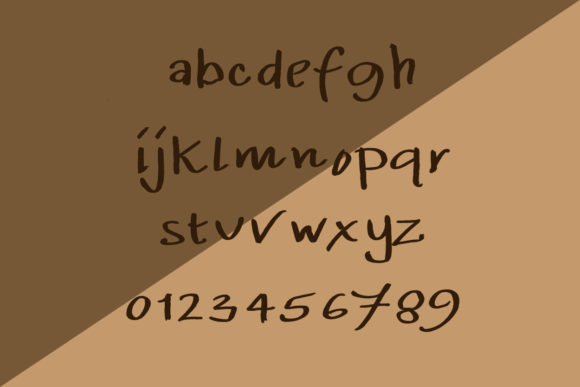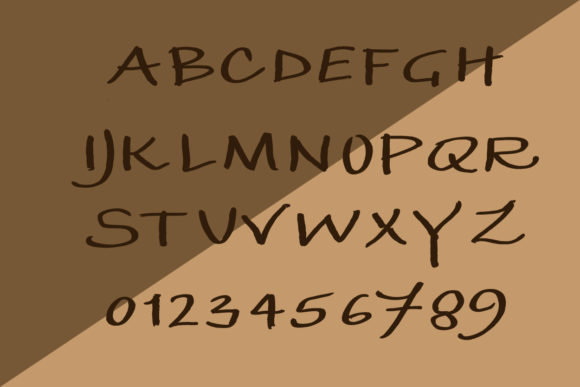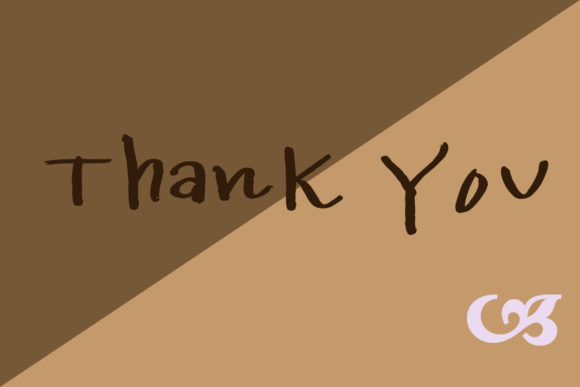
Cafe Choco Font: Add a Personal Touch to Your Designs with this Quirky Handwritten Font
Are you a designer or crafter looking for a unique and authentic font to add a personal touch to your designs? Look no further than Cafe Choco Font! This cute and quirky handwritten font is perfect for creating chalkboard quotes, teaching materials, and other designs that require a personal and realistic feel.
What is Cafe Choco Font?
Cafe Choco Font is a handwritten font that is designed to mimic the look and feel of chalkboard writing. Its authentic and slightly sloppy appearance gives it a unique and endearing quality that is sure to capture the attention of your audience. Whether you’re creating a chalkboard sign, a teaching resource, or a social media graphic, Cafe Choco Font is the perfect choice.
Key Features of Cafe Choco Font
- Cute and Quirky Design: Cafe Choco Font has a playful and whimsical design that is sure to add a touch of personality to your designs.
- Authentic Look and Feel: The font’s slightly sloppy and handwritten appearance gives it an authentic look and feel that is perfect for creating chalkboard-style designs.
- Highly Versatile: Cafe Choco Font can be used for a wide range of design projects, from chalkboard quotes and teaching materials to social media graphics and more.
- Easy to Read: Despite its quirky design, Cafe Choco Font is highly legible and easy to read, making it perfect for creating designs that need to communicate a message.
Uses for Cafe Choco Font
Cafe Choco Font is a highly versatile font that can be used for a wide range of design projects. Here are just a few ideas to get you started:
- Chalkboard Quotes: Use Cafe Choco Font to create eye-catching chalkboard quotes that are perfect for social media, blogs, or websites.
- Teaching Materials: Add a personal touch to your teaching materials, such as worksheets, lesson plans, and presentations, with Cafe Choco Font.
- Social Media Graphics: Use Cafe Choco Font to create engaging social media graphics that are sure to capture the attention of your audience.
- Crafting and Scrapbooking: Add a touch of personality to your crafting and scrapbooking projects with Cafe Choco Font.
Tips for Using Cafe Choco Font
Here are a few tips for getting the most out of Cafe Choco Font:
- Use it with Chalkboard Backgrounds: Cafe Choco Font looks amazing with chalkboard-style backgrounds, so be sure to pair it with a background that complements its authentic look and feel.
- Keep it Simple: While Cafe Choco Font is highly versatile, it’s best to keep your designs simple and uncluttered to ensure that the font remains the focal point.
Cafe Choco Font is a unique and authentic handwritten font that is perfect for designers and crafters looking to add a personal touch to their designs. Its cute and quirky design, authentic look and feel, and high versatility make it a must-have font for any design project. Whether you’re creating chalkboard quotes, teaching materials, or social media graphics, Cafe Choco Font is sure to become a favorite in your design arsenal.